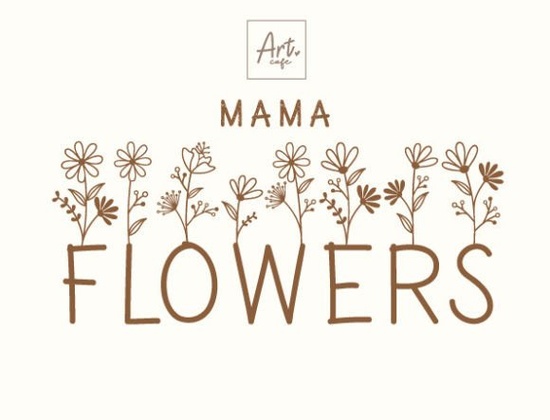
If you're looking for a warm, hand-drawn script font that feels personal and gently artistic especially for Mother’s Day cards, teacher appreciation prints, or small-batch greeting designs Mama Flowers Font fits naturally into your workflow. It’s not overly ornate or hard to read at smaller sizes, and the subtle floral line art woven into each letter gives it quiet personality without sacrificing clarity. You’ll find it especially useful if you often design heartfelt, handmade-style pieces for print-on-demand shops, local boutiques, or craft fairs.
What makes Mama Flowers Font different from other decorative scripts?
Unlike many floral fonts that lean heavily into vintage romance or maximalist embellishment, Mama Flowers Font balances lightness and intention. The lowercase letters have soft, flowing connections just enough movement to feel handwritten but the uppercase characters carry gentle botanical details: tiny stems, looping vines, or dainty blossoms placed thoughtfully along curves and terminals. These aren’t distracting flourishes; they’re integrated like quiet accents in a well-composed photo.
This kind of restraint makes it more versatile than it first appears. You can use it for a delicate watercolor-style baby shower invitation, a minimalist “Thank You” tag for handmade soap, or even a small-batch tote bag design where subtlety reads as sincerity not just decoration.
When does Mama Flowers Font work best?
It shines in projects where warmth and authenticity matter more than bold impact. Think:
- Mother’s Day cards, mugs, and framed quotes (especially paired with soft pastel or earth-tone palettes)
- Teacher appreciation gifts like bookmarks, classroom posters, or thank-you notes printed on kraft paper
- Small business branding for wellness studios, herbal apothecaries, or cottage-core bakeries
- DIY wedding stationery where couples want something tender but not overly formal
Because it’s a single-weight script (no bold or italic variants), pairing it with a clean sans-serif or a gentle serif for body text helps maintain readability especially in longer layouts. For example, try pairing it with a relaxed sans like Quicksand or a low-contrast serif like Cormorant Garamond.
How does it compare to similar fonts on Creative Fabrica?
If you already own or use fonts like the Monogram Love Curly Font, you’ll notice Mama Flowers leans less toward monogram-heavy formality and more toward everyday tenderness. It’s friendlier for full-sentence use not just initials or short phrases. And compared to the breezy, sun-drenched energy of the Summer Beach Font, Mama Flowers carries quieter, grounded energy think garden tea instead of ocean spray.
That doesn’t mean it can’t cross over. A summer-themed “Mom & Me” picnic poster could pair both: Mama Flowers for the headline (“You’re My Sunshine”) and Summer Beach for the playful subhead (“Strawberry Lemonade & Good Vibes”). Mixing fonts like this adds visual rhythm without clashing.
Before using Mama Flowers Font in your next project, keep these in mind:
- Test spacing first. Like many script fonts, letter-spacing adjustments may be needed especially in all-caps headlines or tight layouts. Kerning pairs like “To”, “Mo”, or “Th” often benefit from slight manual tweaks.
- Use OpenType features if available. Some versions include alternate characters or ligatures (like a swash “y” or connected “fl”). Check the product page for included features it’s worth enabling them in design apps like Affinity Designer or Adobe Illustrator.
- Avoid ultra-small sizes. While readable down to ~14pt in print, it’s safest at 18pt or larger for body text. For web use, stick to headings or hero text not paragraph copy.
One final note: if you’re building a seasonal collection say, a set of Mother’s Day + Teacher’s Day + Spring Garden themed designs consider rounding out your palette with complementary florals or soft-line fonts. But for projects where emotional resonance matters most, Mama Flowers Font delivers quietly, consistently, and without fuss.